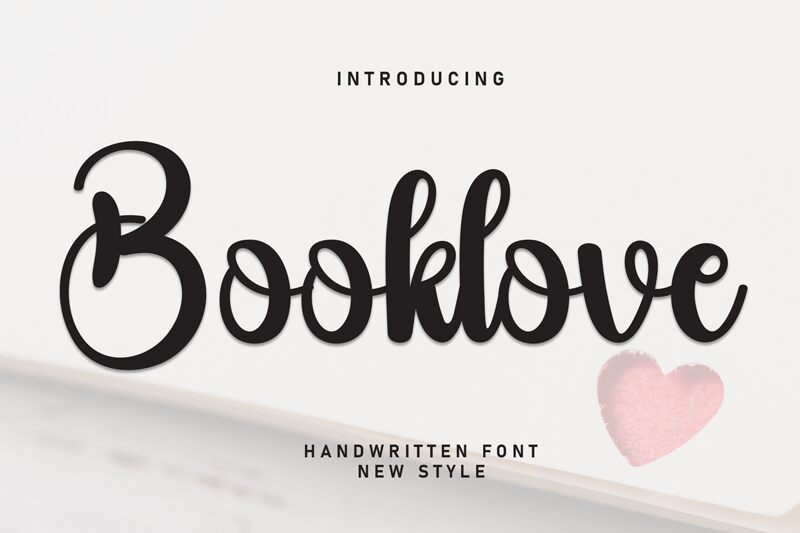
Booklove
Booklove font by Andi Moz is a free brush font that seamlessly blends circular forms with an expressive flow. Embracing a modern script style, it conveys casual elegance through its smooth connections, creating a fluid and harmonious appearance perfect for captivating designs.
Perfectly suited for invitations, cards, posters, social media graphics, logo design, merchandise branding, quote art prints, stationery design, book covers, magazine layouts, and restaurant menus.